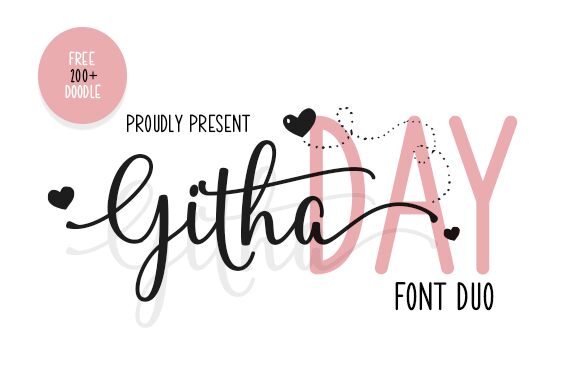
Githa
Githa, the stunning semi-light calligraphy font designed by Danar Nugroho, is a true masterpiece. Its graceful curves and fluid strokes make it perfect for adding an elegant touch to your projects. Whether you're designing wedding invitations, branding materials or social media posts, Githa will make your text stand out in a sophisticated way. The font's intricate details and delicate lines create a sense of timeless beauty that is hard to resist. With Githa, you can give any project a touch of refinement and class that will impress even the most discerning audience. Try it today and see for yourself!